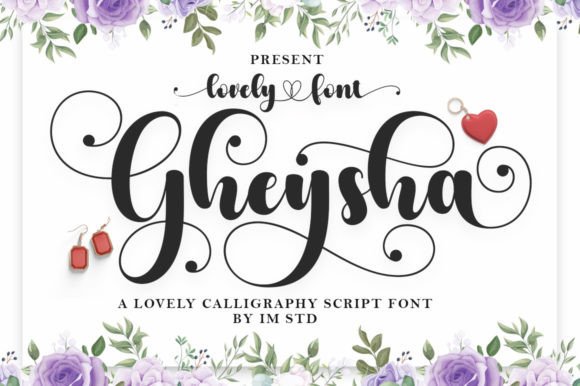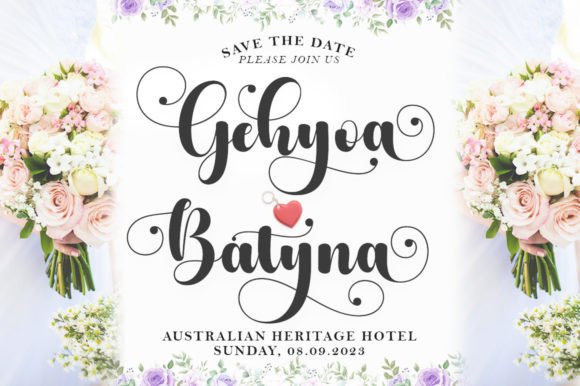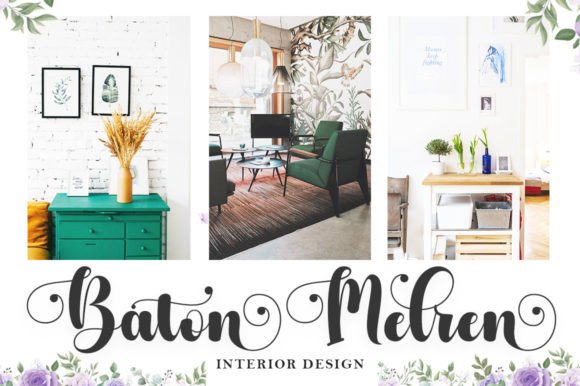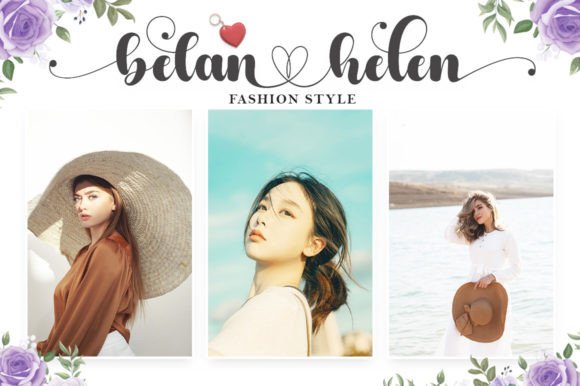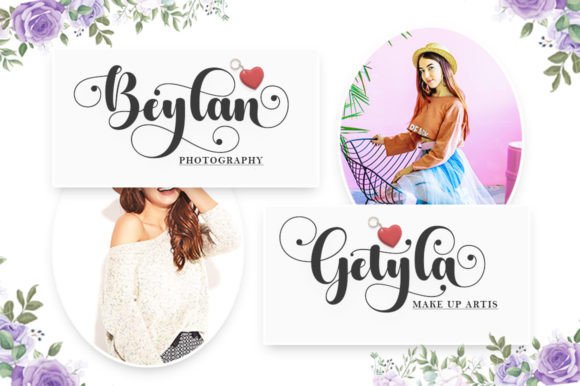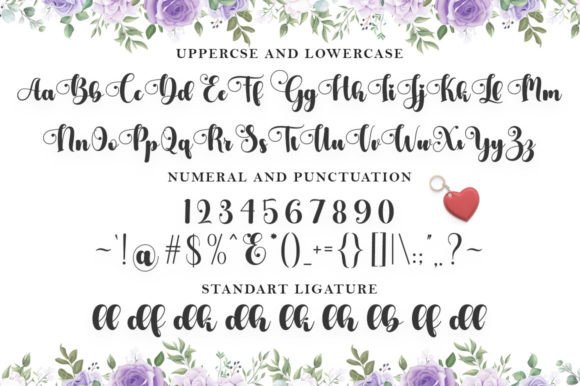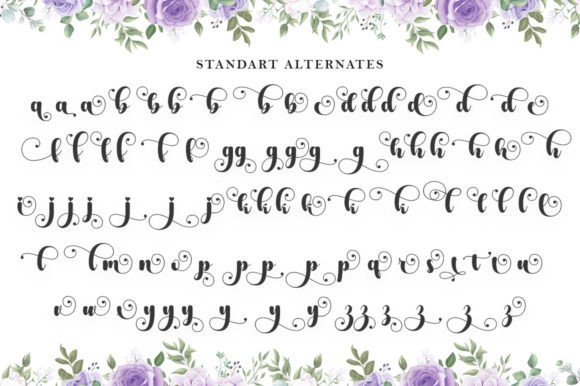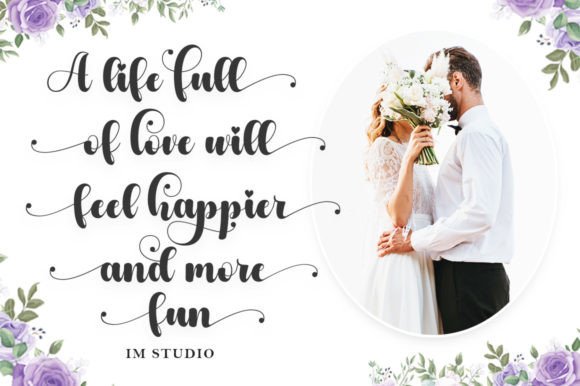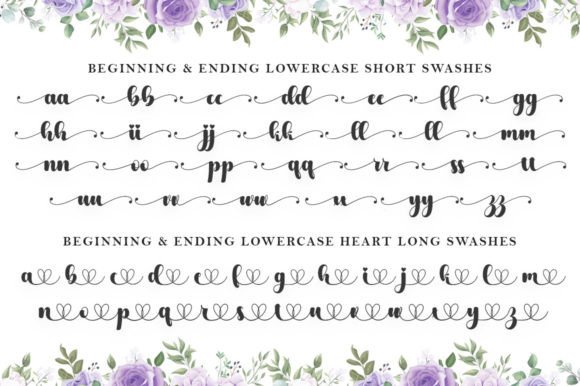
Gheysha Font
About Gheysha Font
“Gheysha” is not just a font; it’s a beautiful and delicate handwritten script that embodies class and modernity. With its classy and contemporary aesthetics, this font is tailor-made for a range of design applications, making it perfect for logos, branding, invitations, stationery, wedding designs, social media posts, and more. The PUA encoding ensures easy access to its extensive set of glyphs and ligatures, providing a versatile and customizable tool for your creative projects.
The beauty of “Gheysha” lies in its delicate handwritten style. Each letter is carefully crafted, exuding elegance and refinement. The font’s modern flair makes it a versatile choice for projects that demand a touch of sophistication, whether in formal business branding or stylish wedding invitations.
The PUA encoding is a valuable feature for designers, allowing seamless access to a variety of glyphs and ligatures. This enhances the font’s flexibility, providing creative freedom to customize and embellish your designs. “Gheysha” becomes not just a font but a canvas for artistic expression.
Imagine “Gheysha” gracing a luxury brand’s logo, where its class and modernity contribute to a distinguished brand identity. Picture it on wedding invitations, adding a touch of romance and elegance. Whether used on social media or in print, this font effortlessly elevates the visual appeal of your designs.
In summary, “Gheysha” is a font that goes beyond mere type; it’s a design asset that brings beauty and sophistication to your creative projects. Let it be the choice for crafting logos and invitations that make a lasting impression. With “Gheysha,” your designs become a showcase of elegance and modern charm.